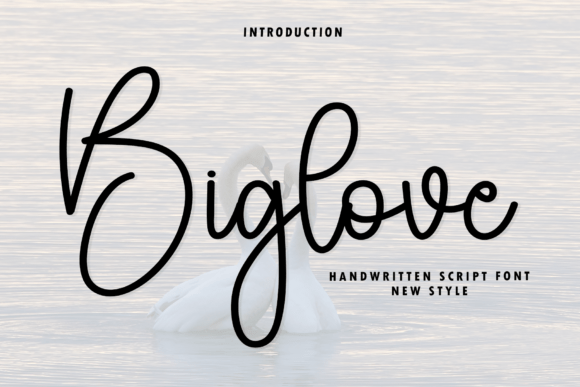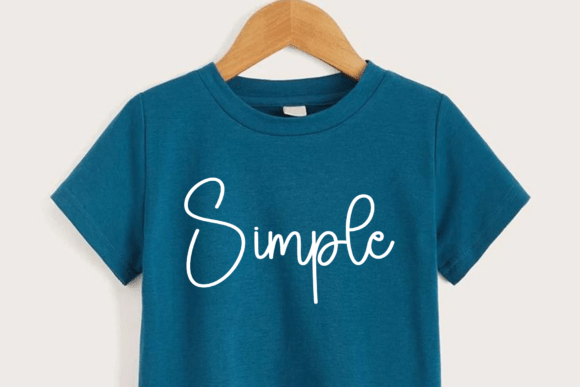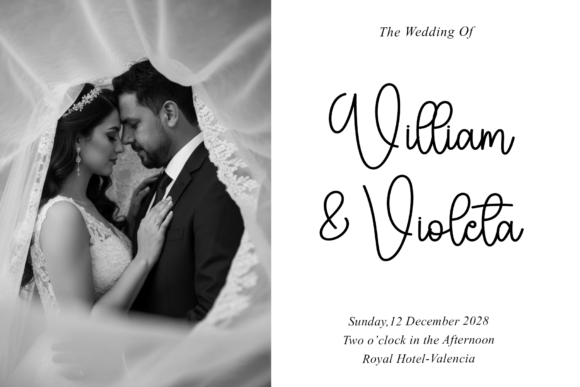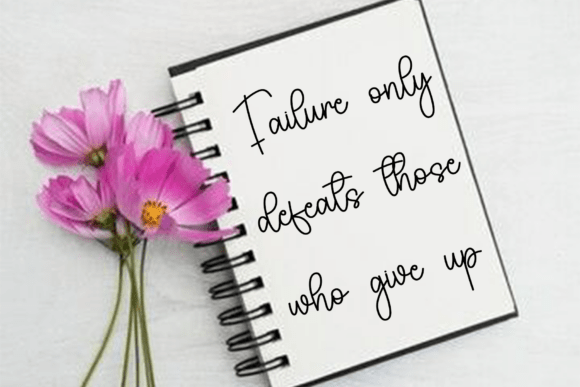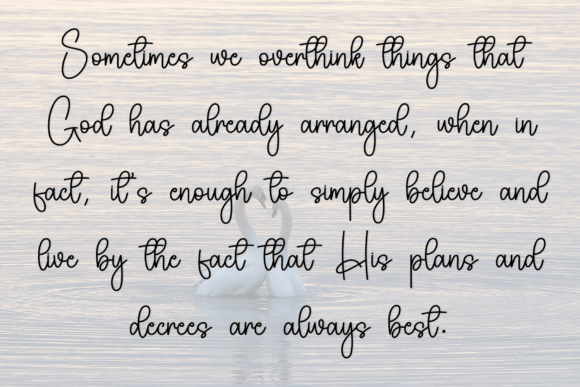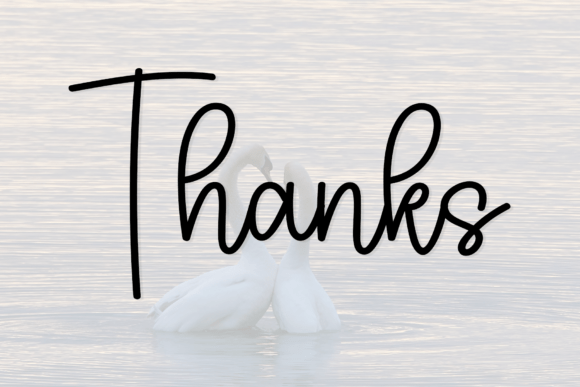
The Art of Elegant Expression: Unveiling the Biglove Font
As designers, we’ve all had those ‘aha’ moments when the perfect font makes all the difference. For me, it’s the feeling of seeing a beautiful handwritten script bring a brand to life. The gentle flow of the letters, the way they dance across the page – it’s a visual symphony that elevates the entire design. And that’s exactly what Biglove Font is all about.
This stunning new font is designed to capture the essence of modern elegance, with its fluid, signature-like motion and delicate balance of tall ascenders and sweeping loops. Whether you’re creating luxury branding, signature logos, or high-end editorial content, Biglove Font is the perfect tool to add a touch of sophistication and class to every word.
- Unique Characteristics: Biglove Font features a unique, hand-drawn design with a playful and elegant feel, making it perfect for use in creative and artistic projects.
Biglove Font Review
Biglove Font is a beautiful, elegant script font that exudes warmth and sophistication. It’s perfect for designing invitations, wedding stationery, or any project that requires a touch of romance. I love how it ✨ flows effortlessly, making it a joy to read and write with.
One of the standout features of Biglove Font is its ✨ versatility. It comes in a range of weights, from Light to Bold, making it suitable for a variety of design applications. The font is also highly customizable, allowing you to adjust the spacing, size, and color to suit your design needs.
However, I did encounter some limitations with Biglove Font. For one, it can be a bit ⚠️ overused in certain design circles, making it lose its impact if not used thoughtfully. Additionally, the font may not be the best choice for projects that require a more modern or edgy feel, as it tends to lean towards a more traditional or vintage aesthetic.
- Beautiful, elegant script font
- ✨ Versatile and highly customizable
- Range of weights (Light to Bold)
- Perfect for invitations, wedding stationery, and romantic designs
Overall, I would give Biglove Font 4 out of 5 stars. While it has its limitations, it’s a beautiful and versatile font that’s perfect for a range of design applications. With thoughtful use and customization, it can add a touch of romance and elegance to any project.
Use Biglove Font in conjunction with bold or italic text for added emphasis. Experiment with different font sizes to create visual hierarchy in your design. Use Biglove Font in headings and titles to create a consistent brand identity.
Use Biglove Font for creative projects, such as graphic design, social media graphics, and branding materials. It’s also suitable for digital marketing materials, like email templates and website headers. Biglove Font is a versatile font that can be used in various contexts to create visually appealing and engaging designs.